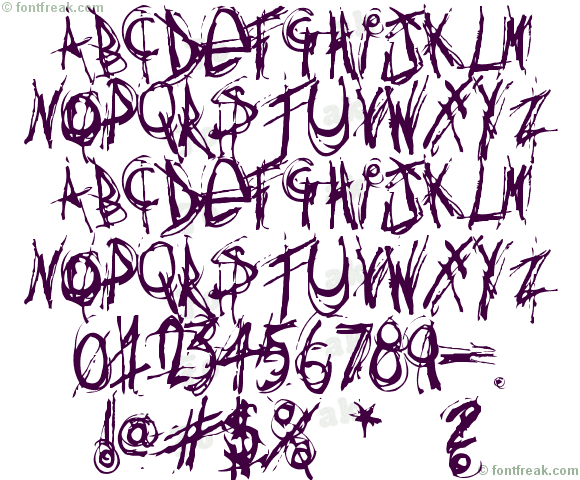
Anythingyouwant
About Anything You Want
The "Anything You Want" font by Alex C. is a unique handwritten typeface that embodies the essence of urban artistry and personal expression. This freeware font, created from the artist's own graffiti-style caps writing, captures the raw, energetic spirit of street art while maintaining legibility and versatility. As a display font, it features a grunge aesthetic characterized by irregular strokes and varying weight, which contribute to its distinctively organic feel. The spacing between characters is intentionally designed to evoke a sense of spontaneity, making it perfect for projects that require a personal touch.
Visually, the "Anything You Want" font exhibits a playful yet bold personality. The uneven stroke weight and slightly distressed finish add a layer of depth, enhancing its overall character without compromising readability. This makes it an excellent choice for a variety of creative applications. It shines in contexts such as music album covers, where it can convey an edgy vibe, or in streetwear branding, where authenticity is key. Additionally, it can be effectively used in event posters, graffiti-themed artwork, and even restaurant menus that aim to create a casual, inviting atmosphere.
The target audience for this font includes graphic designers, small business owners, and content creators who are looking to make a statement with their visual communications. Its unique style allows for creative freedom, making it an ideal choice for those who want to stand out in a crowded marketplace.
What sets the "Anything You Want" font apart is its ability to blend artistry with functionality. By providing a free download, Alex C. encourages users to explore their creativity without barriers. This font not only serves as a tool but also as a source of inspiration, inviting users to express themselves in ways that are as individual as their own handwriting.